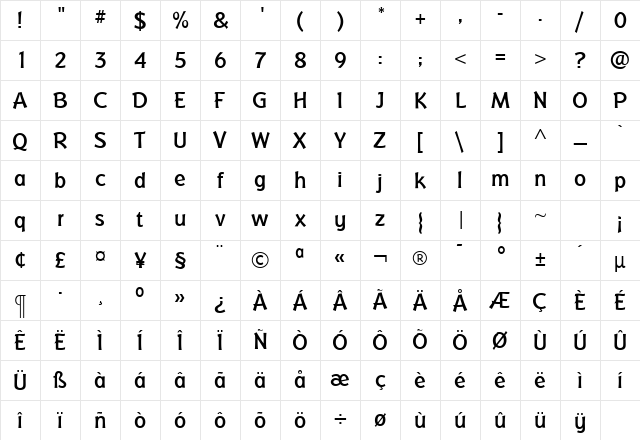
BadgerMedium Roman
Design Context for BadgerMedium
BadgerMedium is a composed and adaptable typeface that performs quietly and consistently across a wide range of design contexts.
Pro Tip: Use BadgerMedium in both headline and body roles to test its range before committing to a single application.